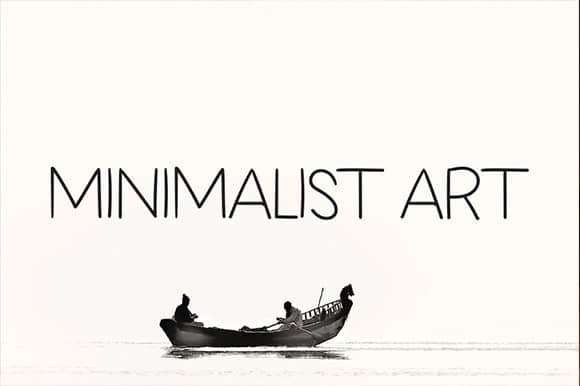
MINIMALIST ART Font
MINIMALIST ART Font is the latest style letters are perfect for wall displays, wedding invitations, social media post logos, advertisements, product packaging, product designs, labels, photography, watermarks, invitations, stationery, and any project that requires taste handwriting.